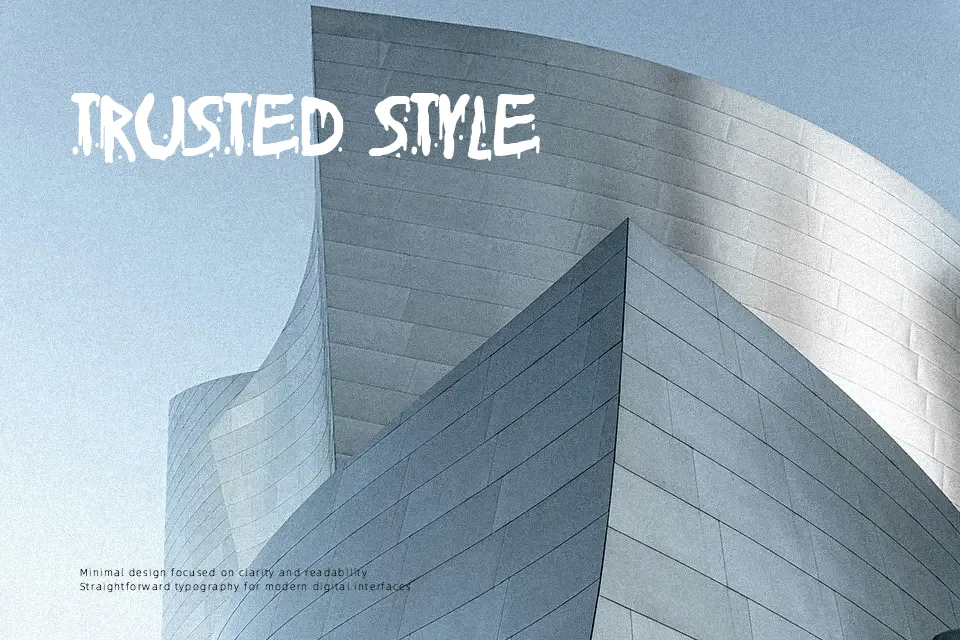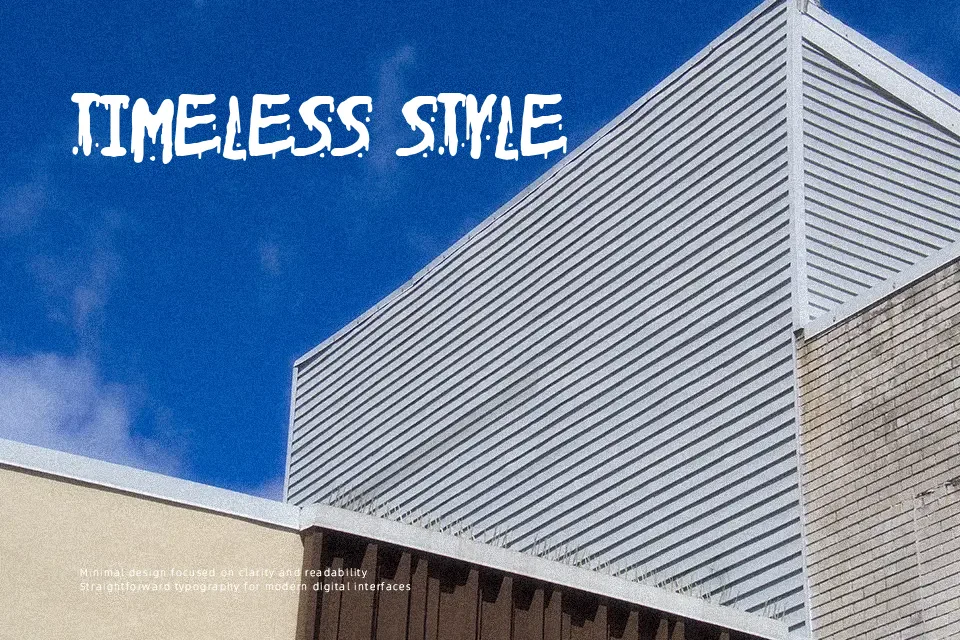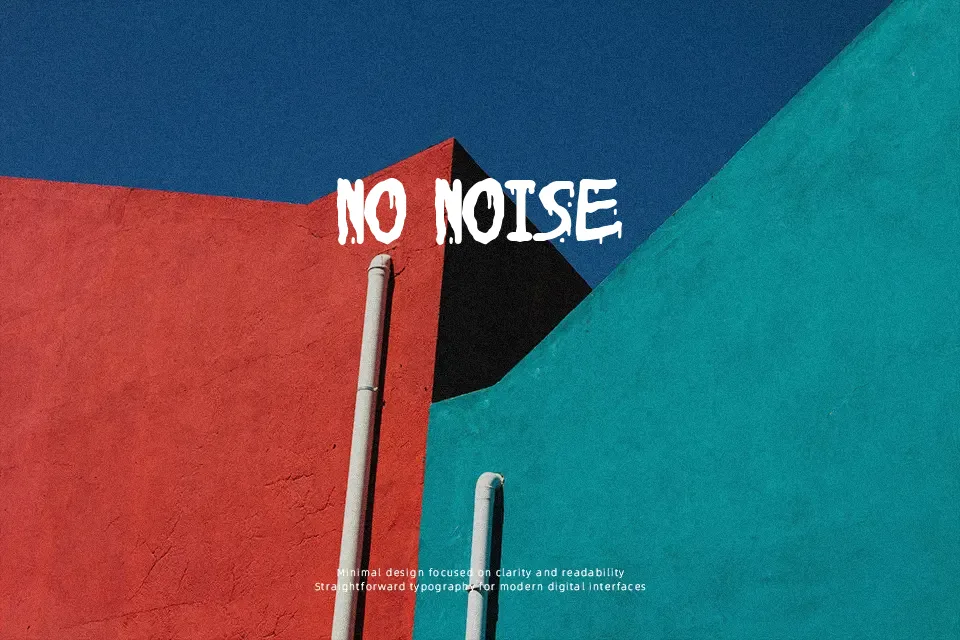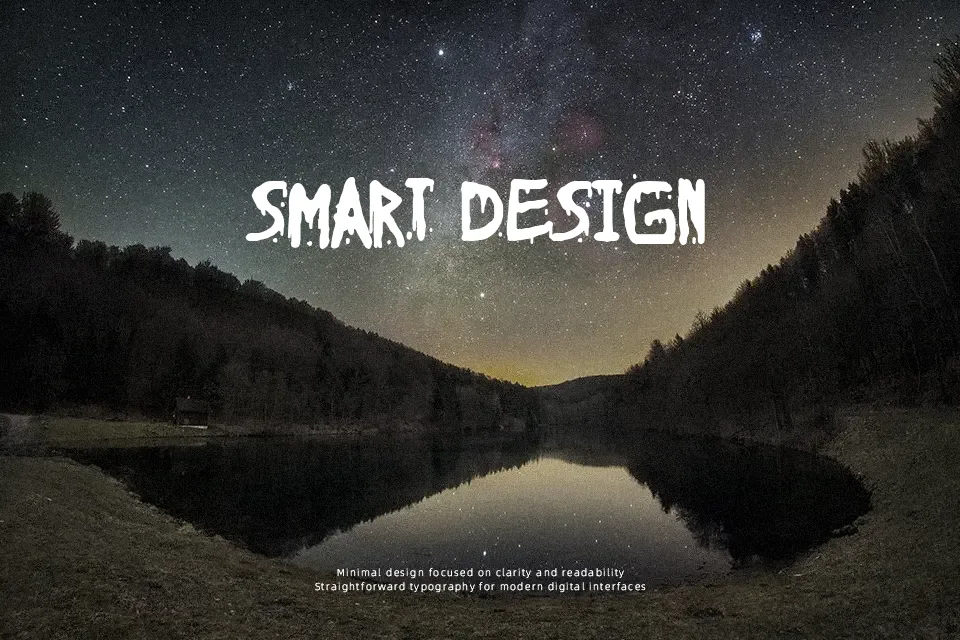
Blood & Horror Font
Blood & Horror Font delivers a visceral, highly decorative aesthetic defined by thick, erratic strokes and heavy bottom drips simulating oozing liquid. Irregular character spacing and aggressive baseline shifts create an intensely chaotic, unrefined structure that dominates any canvas with its dark, grungy presence. This typeface thrives in large-scale applications demanding high visual impact, such as retro slasher movie posters, haunted house promotional flyers, or heavy metal album covers. Because the organic dripping elements severely compromise legibility at smaller scales, the font fails in paragraph formats or dense editorial layouts. Compared to standard spooky fonts, its heavy splatter effects feel remarkably raw. Keep it reserved as a striking headline display piece rather than functional reading text.
Haunted house promotional flyers
Indie slasher movie title sequences
Extreme metal music album covers
Halloween-themed party invitations
Dense body text or paragraphs
Corporate branding and professional logos
Small digital UI elements
Perfect for film, gaming, and halloween, with a dark and decorative style.